Newglyph
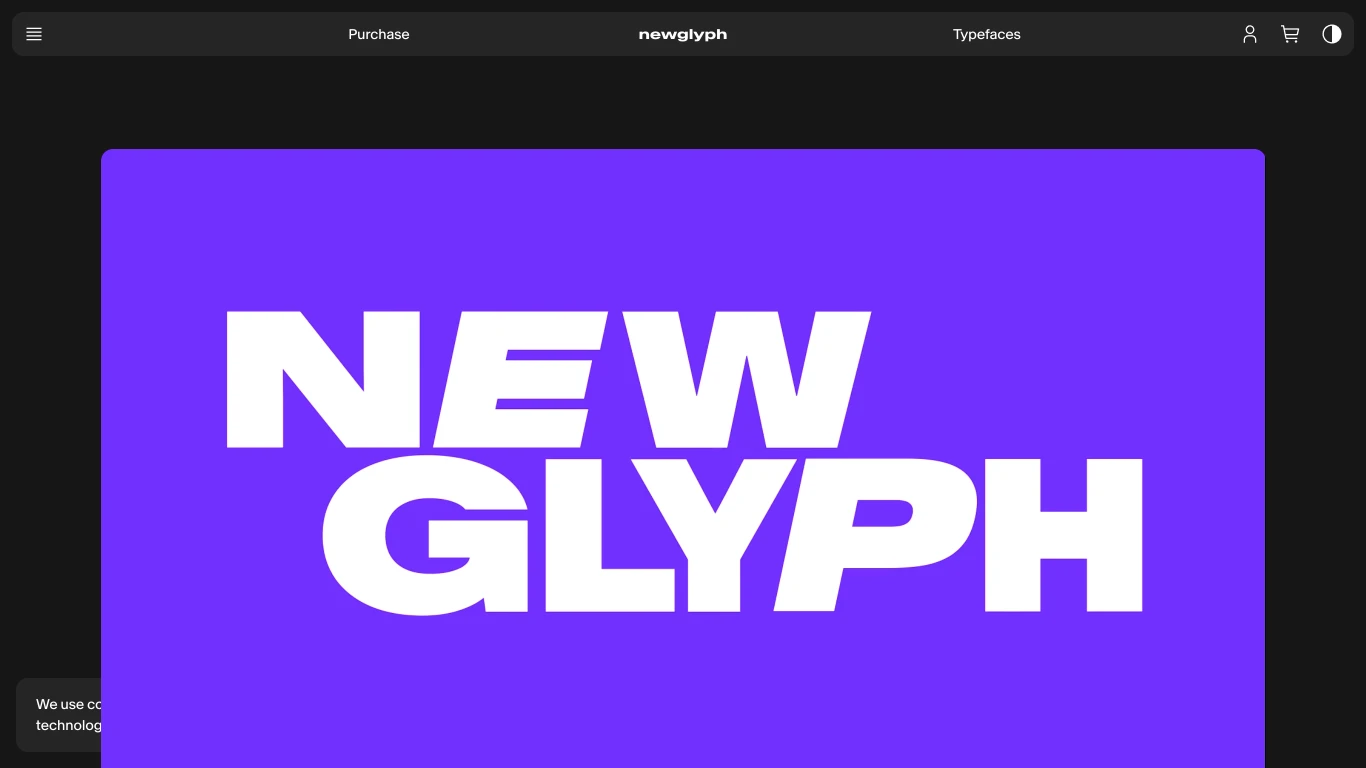
Switzerland
2019
Newglyph is a Swiss type foundry and design studio based in Lausanne, founded in 2019 by Ian Party, Daniela Retana, and Dennis Moya Razafimandimby. Specializing in variable fonts and custom type systems, the studio blends precision with emotional depth in its designs. Notable typefaces such as Antarctica, Baikal, and Atacama cater to diverse design needs, while clients like HAVAS, RTS, and Nox Orae have utilized their fonts in high-profile branding projects. The studio’s work has earned accolades, including the Swiss Design Awards and Type Directors Club Award.